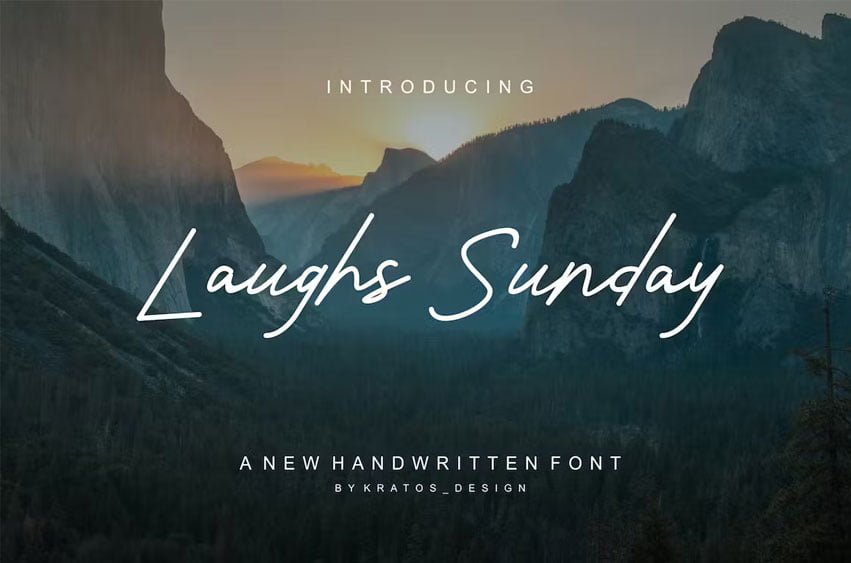
Laughs Sunday Font
Laughs Sunday Font Modern Font is a bold and authentic display font. The font is suitable for any branding project like logo, Template Design, Product and many more. outstanding in a wide range of contexts.